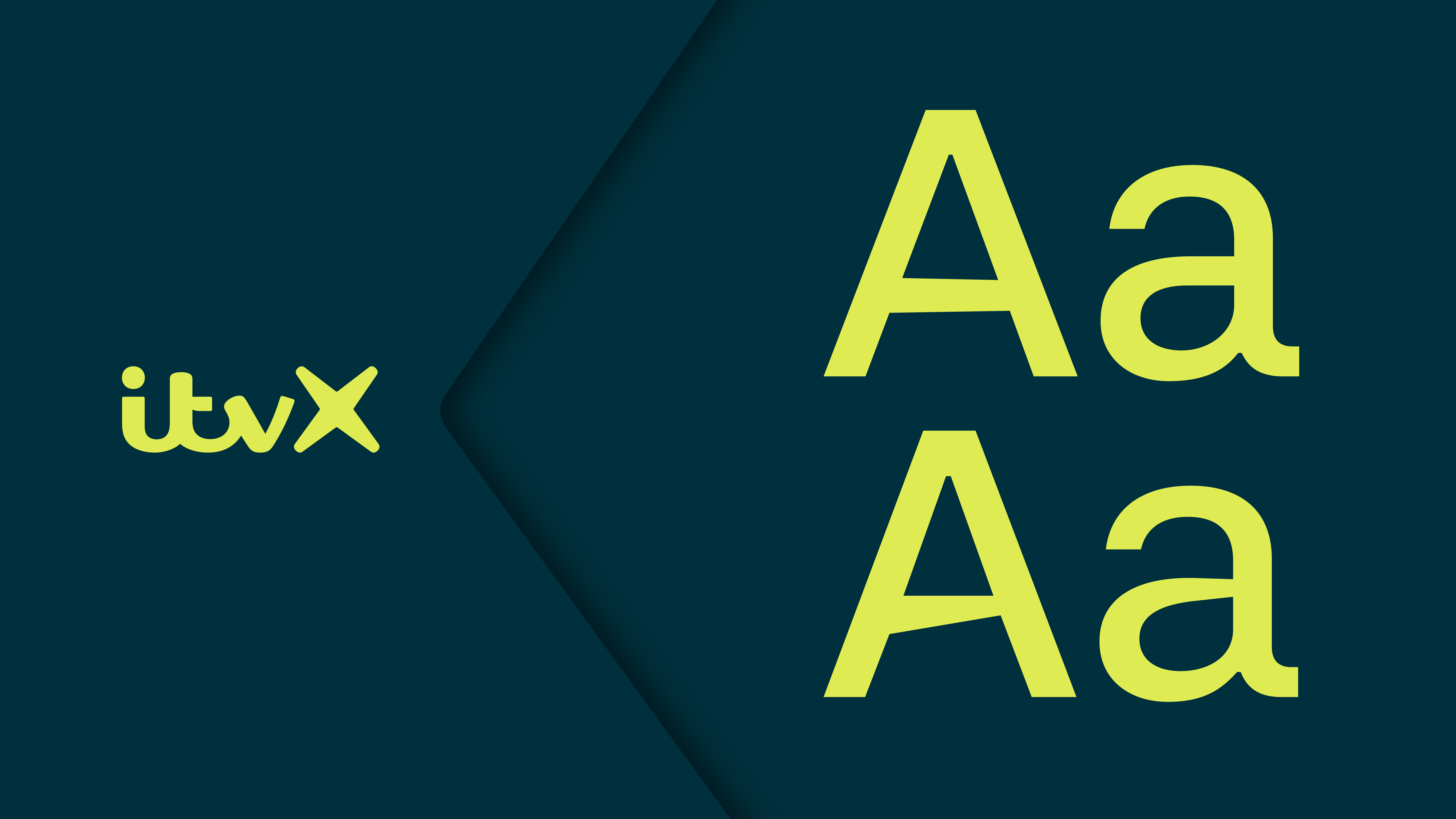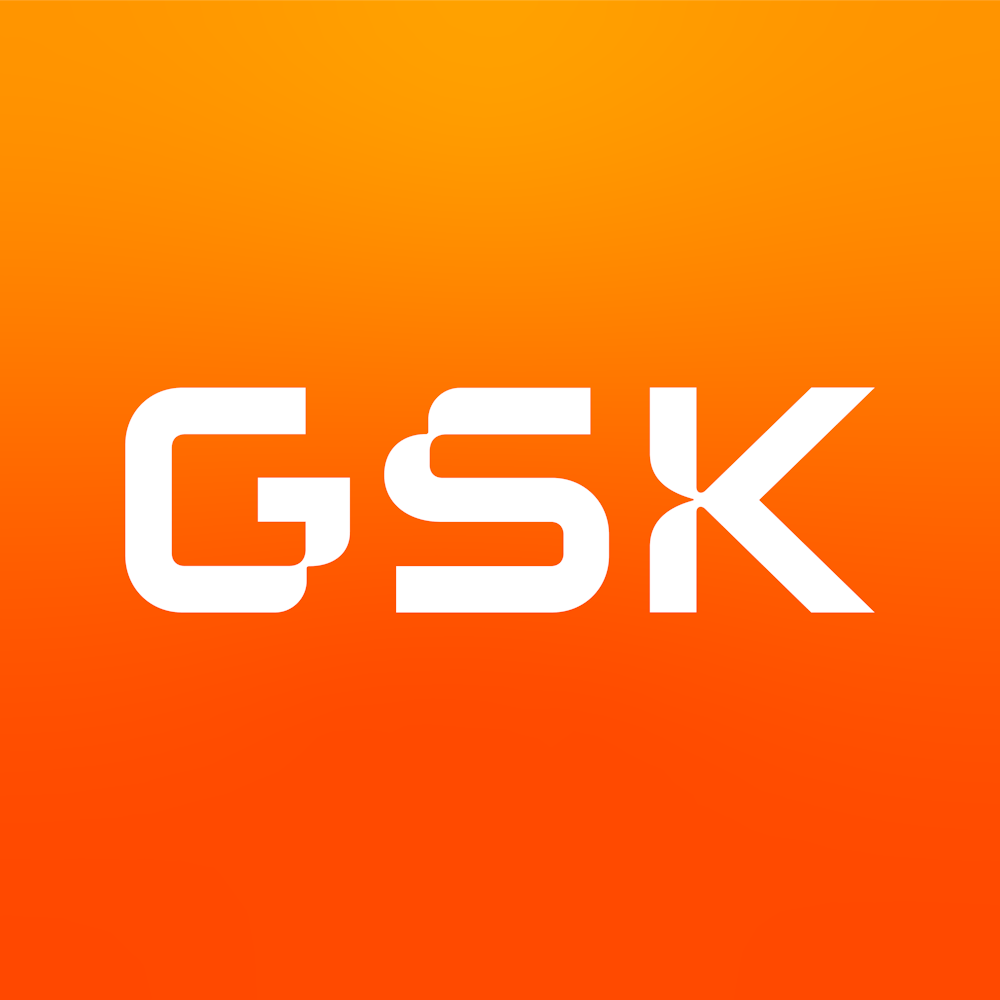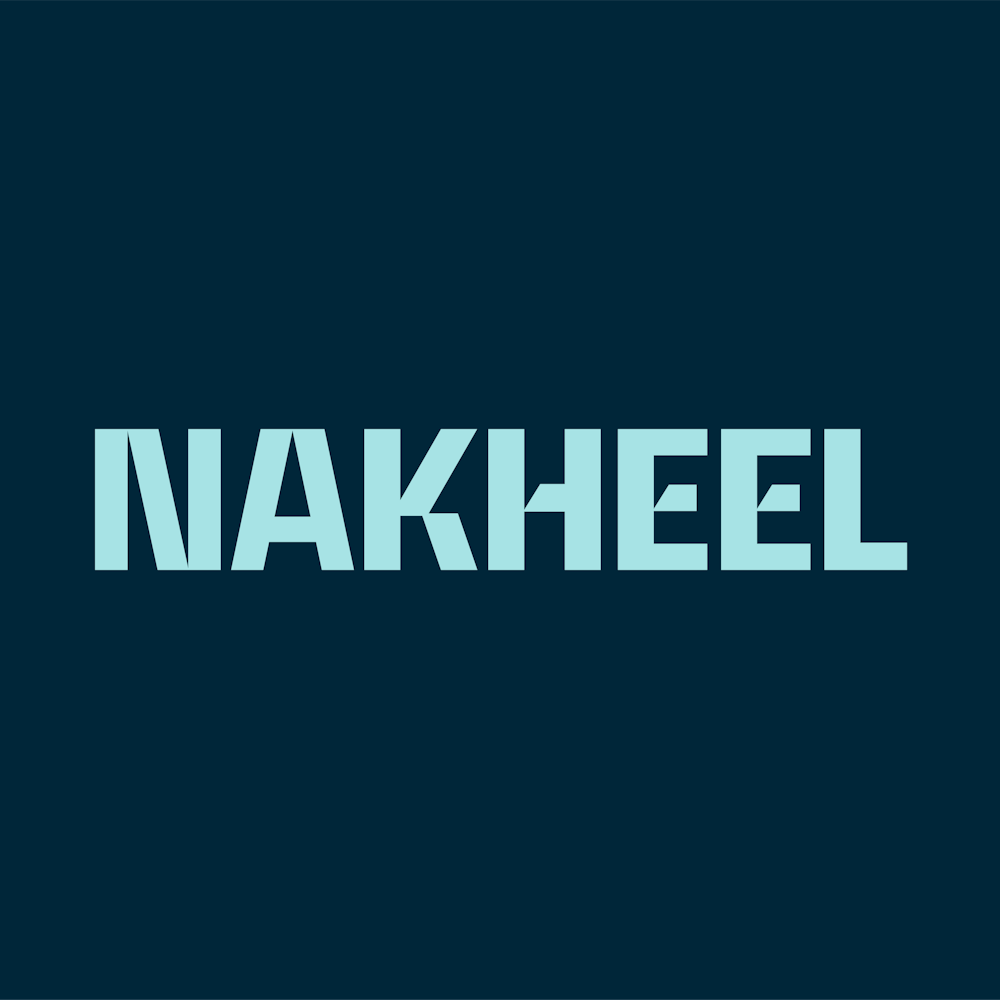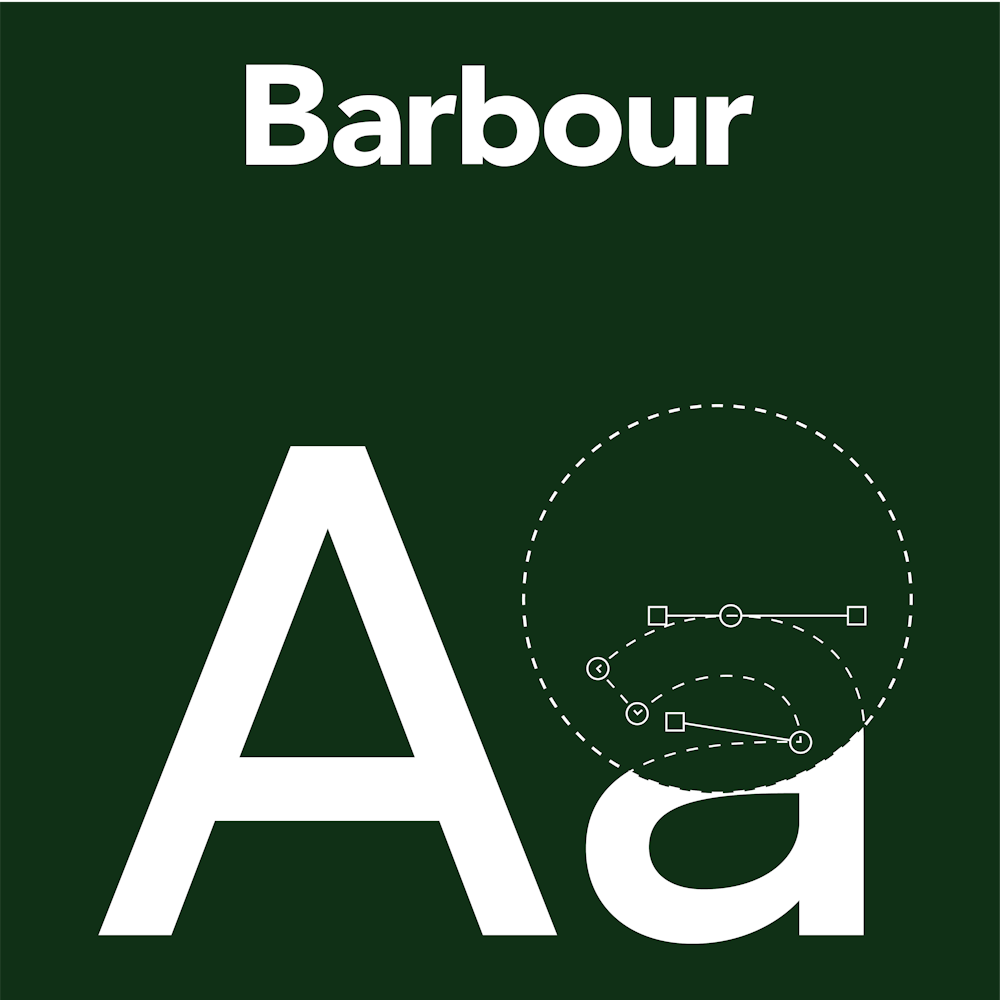
Modified Fonts
We can modify our existing fonts to make them personal to you. From subtle tweaks and fine enhancements to more extensive customisations. Expressive, emotive and engaging, they convey the character of your brand, adding real commercial value, wherever in the world you do business.
JD Sports
A modified F37 Judge font designed to bring confidence and forward momentum, reflecting JD Sports’ dynamic and global attitude.
TNT Sports
We created two athletic-modified fonts for TNT Sports, based on F37 Judge and F37 Wicklow, to tee up the launch of the new brand.
ITV
A diverse family of fonts built from F37 Zagma that perfectly embodies the new, digital-first experience of broadcasting giant, ITV.
Fujitsu
Fujitsu’s brand refresh focused on using F37 Ginger as a starting point in sharpening its image to remain modern and impactful whilst aiming for a more sustainable future.
WHY CHOOSE A MODIFIED FONT
The way you present your messages typographically becomes a part of who you are and how you connect to customers. Creating a modified F37® typeface is a valuable, worthwhile and often quicker alternative to creating a custom font from scratch.
GSK
GSK chose F37 Jan as a starting point to build on a functional type element (the ink trap) to perfectly demonstrate an aesthetic feature of what the brand stands for.
Max
A modified version of F37 Moon was the perfect choice when HBO Max became simply Max in April 2023, after WarnerMedia merged with Discovery, creating a new company called Warner Bros. Discovery.
How it works
Unlike with a custom fonts where you’re starting from scratch, there is already a working typeface to build upon. Whilst we can look to build minor or significant changes to the design, we need to make sure that such modifications are not the same as those completed for other clients who own exclusive rights. Also, we need to ensure that any proposed modifications don’t compromise the consistency and design aesthetic of the typeface.
Barbour
Barbour updated its brand font to F37 Ginger, with a modified ‘a’ glyph to add a modern twist whilst retaining a sense of stability and confidence.
Nakheel
F37® were commissioned to develop a compact, but versatile type family from F37 Incise for the Dubai-based real estate giants, Nakheel.